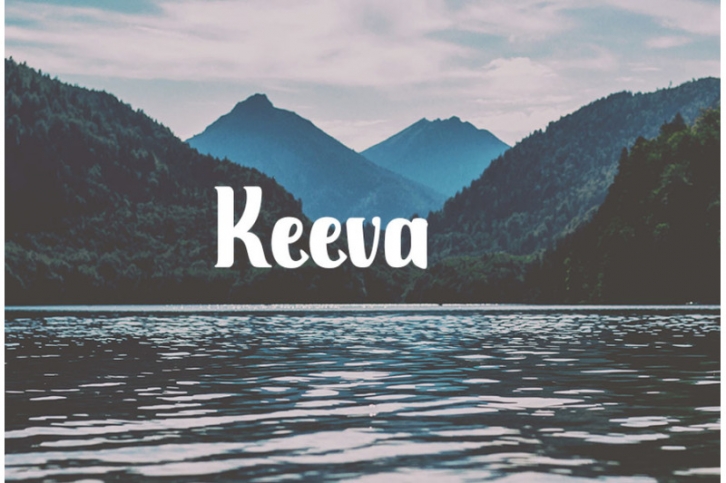
An elegant calligraphy script font. Perfect for making elegant stylish statements – or adding a touch of class to your designs.. This script has a multitude of natural looking ligatures in its – making the font look as close to natural handwriting as possible.